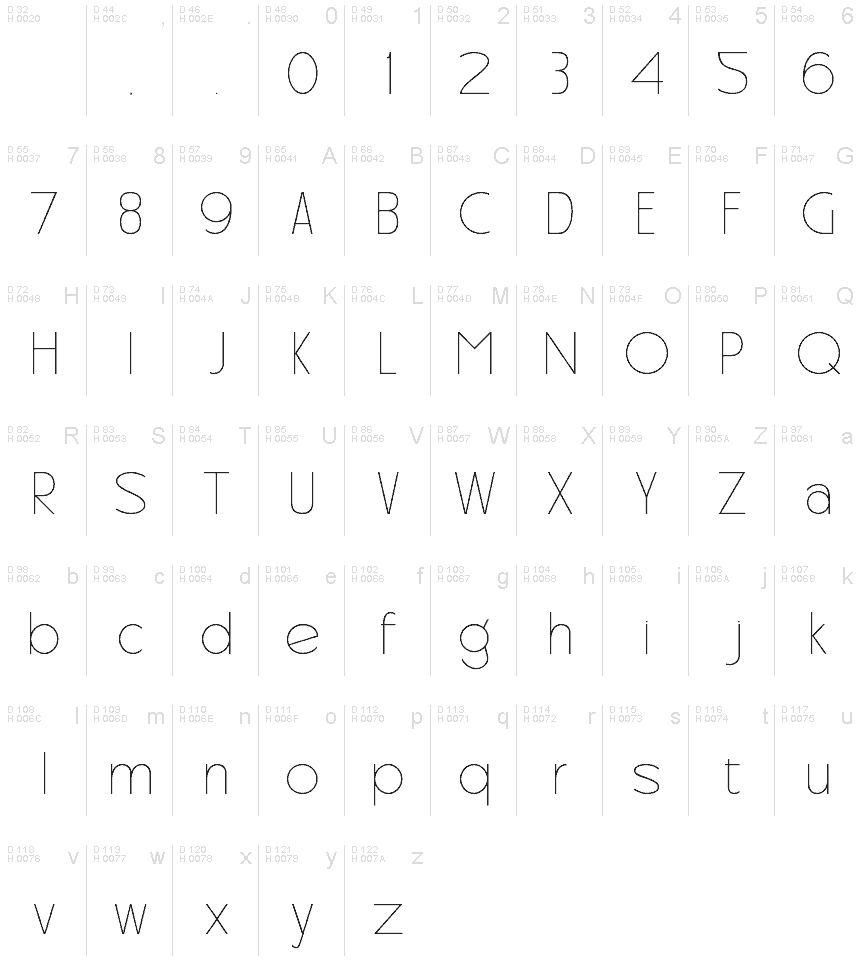
Carltine Thin
Carltine Thin font is a free sans serif font from Muksal Creative, with a sleek contemporary design that serves the present trends. Simple and lacking any embellishment, the font comes exclusively in light weight which is just enough to make it stand out without overpowering other elements like graphics or images.
Use the resource in printed magazines, newspapers, tabloids and electronic websites that host news content which people need presented fast. It can also be used for branding visual identities, packaging designs for luxury products, contemporary signage, headings and other short-medium text volumes.